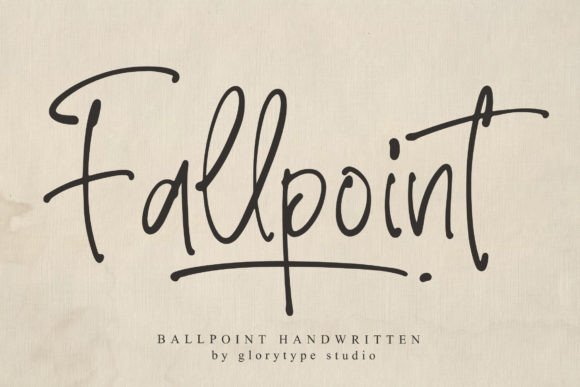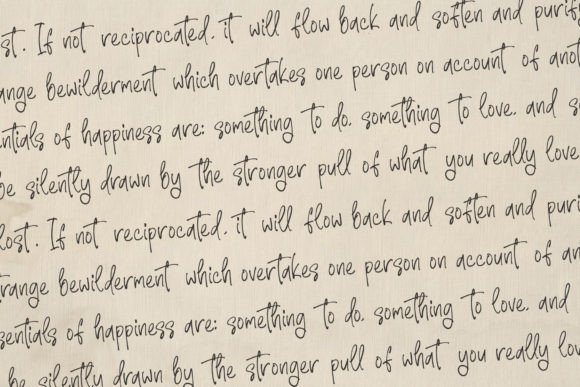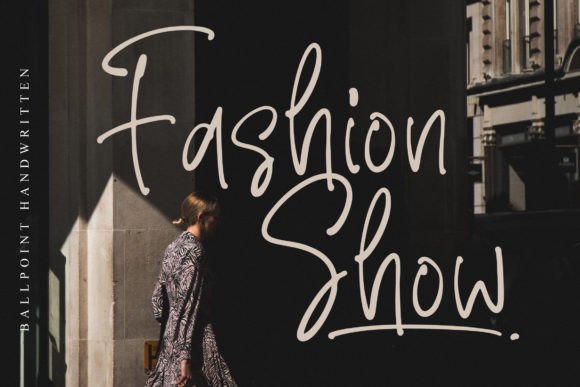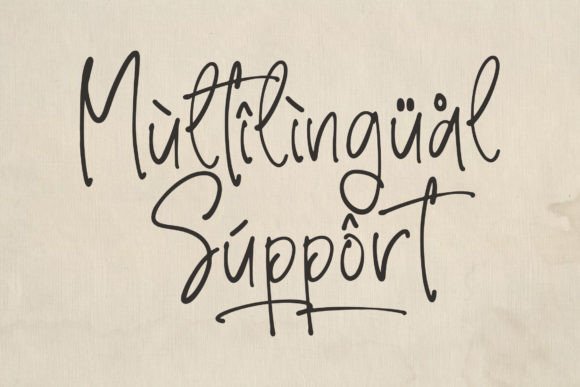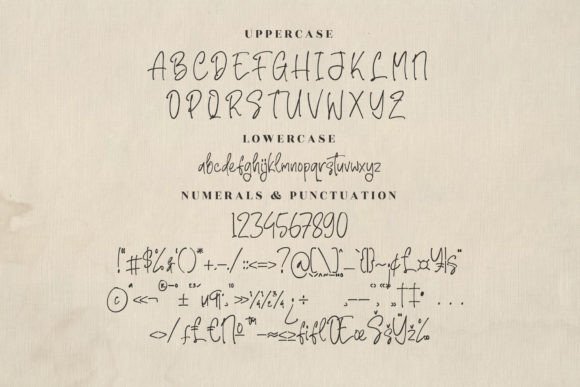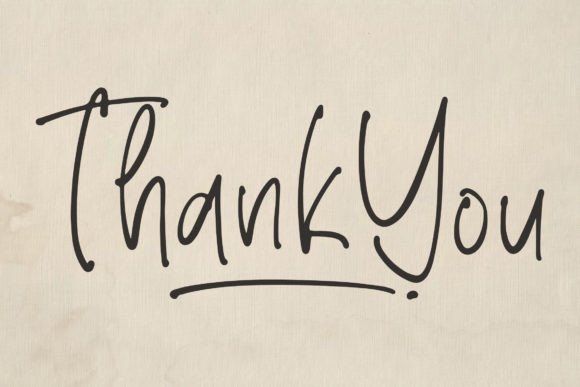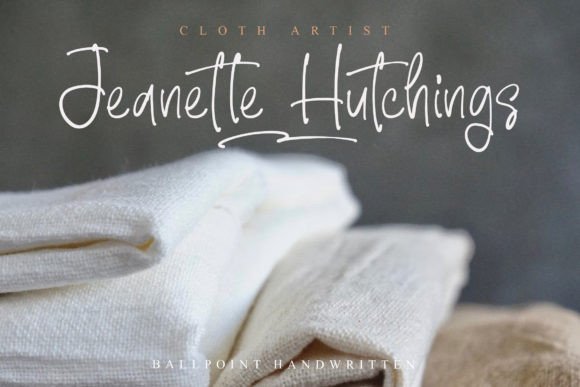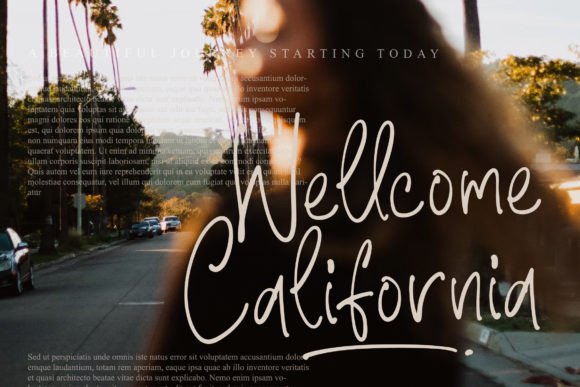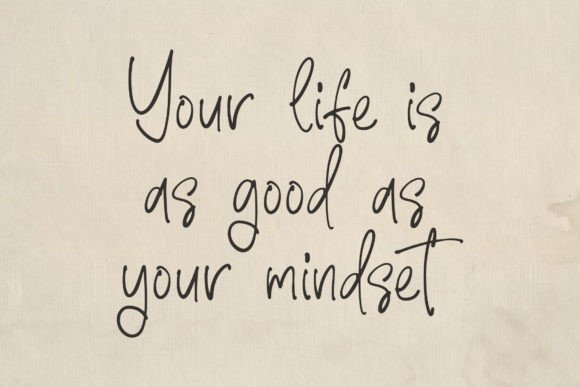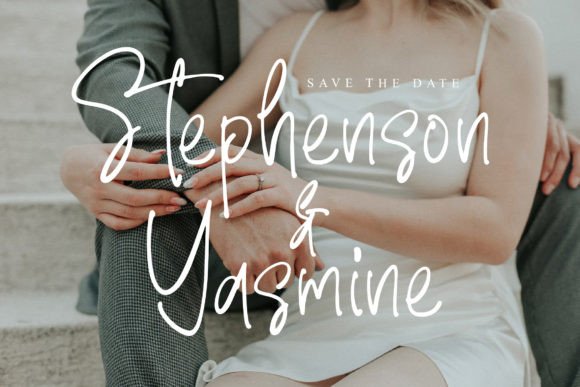
Fallpoint Font
About Fallpoint Font
“Fallpoint” is not just a font; it’s a versatile tool that brings a unique blend of casual elegance to your creative endeavors. Crafted to resemble the strokes of a ballpoint pen, this handwritten font introduces a casual and stylish touch that resonates across a spectrum of design applications.
The font’s casual elegance makes it a perfect fit for logos, branding, and homeware designs, where a relaxed yet sophisticated aesthetic is desired. Its adaptability extends to product packaging, posters, and even apparel items like t-shirts, adding a personalized and genuine feel to your creations. The subtle script aesthetic embedded in “Fallpoint” creates a connection with the audience, invoking a sense of authenticity that is often sought after in design.
The versatility of “Fallpoint” is truly expansive, making it an ideal choice for book covers, labels, and photography watermarks. Its ability to seamlessly integrate into special events materials adds a touch of individuality to invitations and other design elements. In essence, “Fallpoint” becomes a chameleon, effortlessly adapting to the unique requirements of each project.
The font’s script taste is not just about visual aesthetics; it adds a layer of personality to your designs. It’s like the comforting strokes of a pen, transforming digital spaces into handwritten notes. This creates an emotional connection with the audience, making your designs more relatable and memorable.
“Fallpoint” is not bound by the limitations of traditional fonts; instead, it introduces a handwritten charm that is both delightful and engaging. Its application is not just confined to print; it seamlessly integrates into the digital realm, enhancing social media posts and digital branding efforts.
As a designer’s companion, “Fallpoint” transcends the boundaries of a typical font. It becomes an integral part of your creative toolkit, elevating each project with its distinctive charm. With its adaptability, casual elegance, and script aesthetics, “Fallpoint” transforms your designs into authentic pieces of art, making them stand out in a world saturated with visual content. In essence, “Fallpoint” is more than a font; it’s a creative companion that breathes life into your imaginative endeavors.